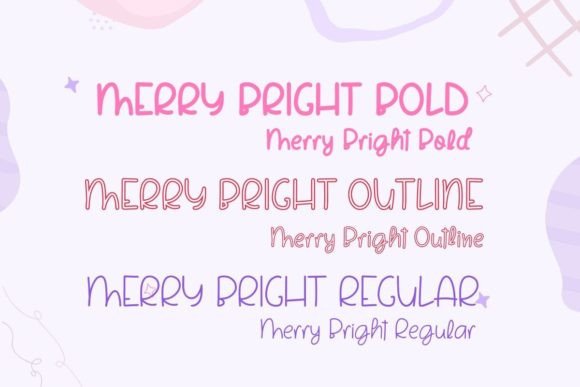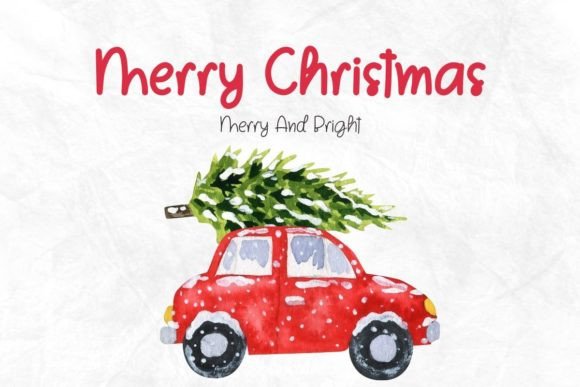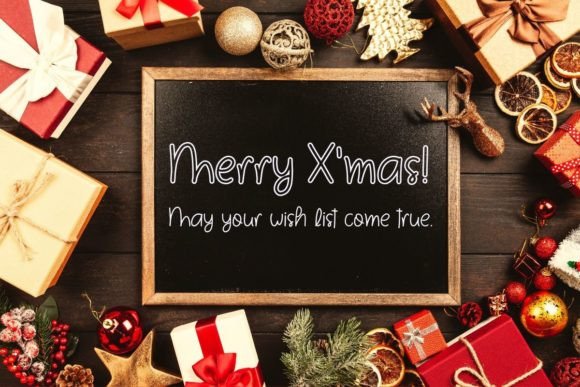
Merry Bright Font
Introducing Merry Bright Font
The Merry Bright Font is a fun and slightly quirky handwritten typeface that exudes casual charm. This font brings a playful and approachable vibe to your design projects, making it suitable for a diverse range of creative ideas. Its appeal lies in its ability to convey a sense of fun and informality, which can be a great asset in design contexts where you want to engage with your audience in a light-hearted manner.
Why Choose This Font?
• Fun and Informal: Add a touch of playfulness to your projects while maintaining an approachable feel, perfect for greeting cards, posters, and social media graphics.
• Versatility: Provides a visually appealing choice for various creative endeavors, allowing you to infuse your designs with personality.
Applications of This Typeface
• Greeting Cards: Create playful cards that capture attention.
• Posters: Enhance posters with a quirky style that conveys modern informality.
• Social Media Graphics: Perfect for adding a casual script aesthetic to social media posts.
The Impact of Using Merry Bright
This font elevates your designs by making them visually captivating and memorable. It becomes a reliable tool for designers seeking to create projects that stand out with playfulness. Its balanced form ensures your designs are both lively and captivating.
The Value It Brings
This typeface excels in combining contemporary design aesthetics with casual elegance. By choosing this font, you ensure your designs are not only visually appealing but also engaging and unique.
This font is also ideal for various creative projects beyond traditional uses. It can enhance digital designs with its cheerful flair, making it suitable for websites, brochures, or mobile interfaces. The Merry Bright Font adapts well to different screen sizes while maintaining its charm. As design trends evolve, this font remains relevant due to its timeless appeal, balancing style with functionality effectively.